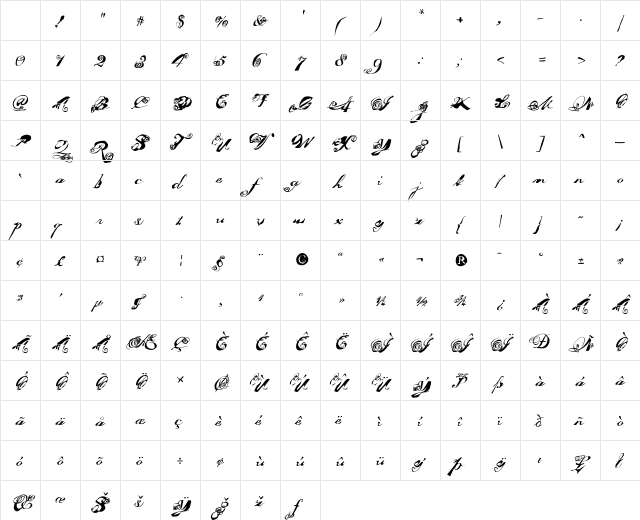
Masterpiece Allegro
Style: Allegro
Design Context for Masterpiece
Masterpiece is a composed and adaptable typeface that performs quietly and consistently across a wide range of design contexts.
Pro Tip: Use Masterpiece in both headline and body roles to test its range before committing to a single application.